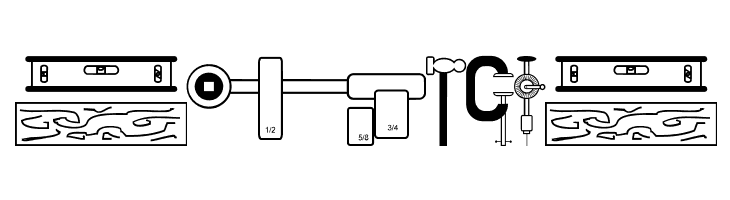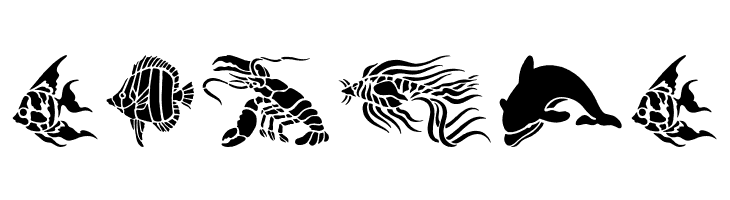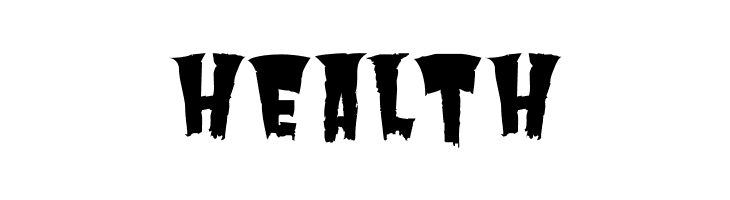
A collection of tool-themed icons representing each character.
Illustrative, tool-themed decorative font with high visual complexity.
A decorative font composed of star-shaped characters, perfect for playful and themed designs.
A playful, heart-themed decorative font with romantic doodles and expressions.
A playful dingbat font with cute Halloween-themed illustrations.
A decorative stencil font featuring intricate aquatic-themed designs.
A bold, decorative font with a Western flair, ideal for headlines and themed designs.
A bold, horror-themed font with dripping, jagged characters.